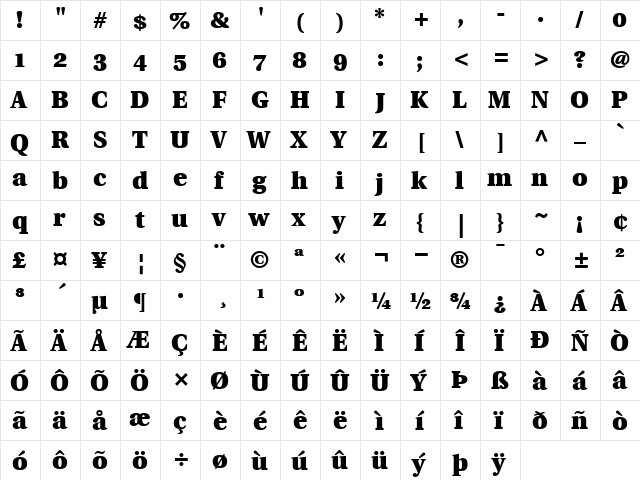
UtopiawithOldstyleFigures-Black Black Font Preview
UtopiawithOldstyleFigures-Black Black
Design Context for UtopiawithOldstyleFigures-Black Typeface
UtopiawithOldstyleFigures-Black brings classic typographic sensibility to the table — its serifs and measured letterforms reflect centuries of print heritage.
Pro Tip: Set UtopiawithOldstyleFigures-Black with slightly loose tracking in headlines to let each letterform's detail read clearly at display sizes.